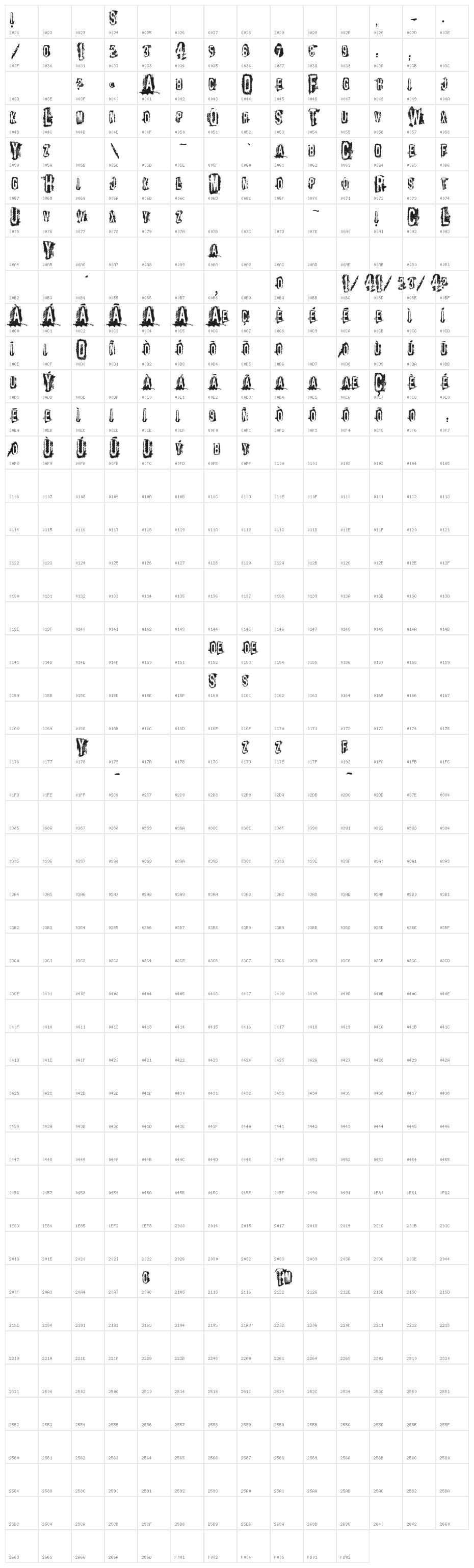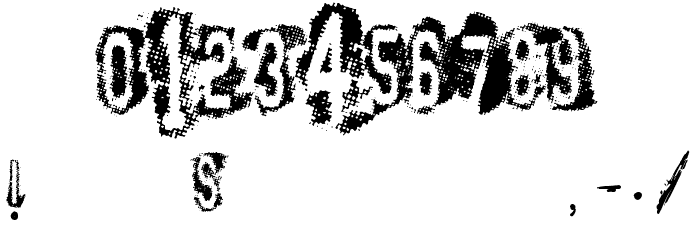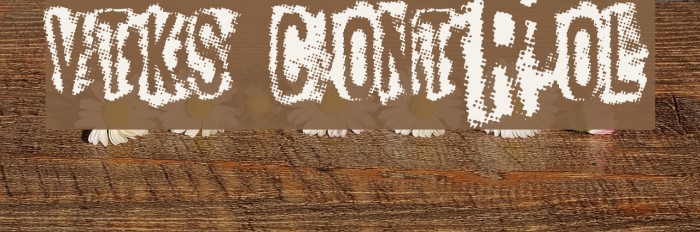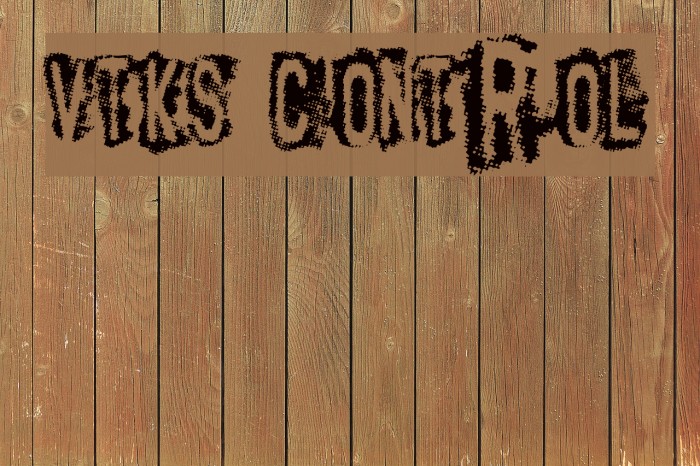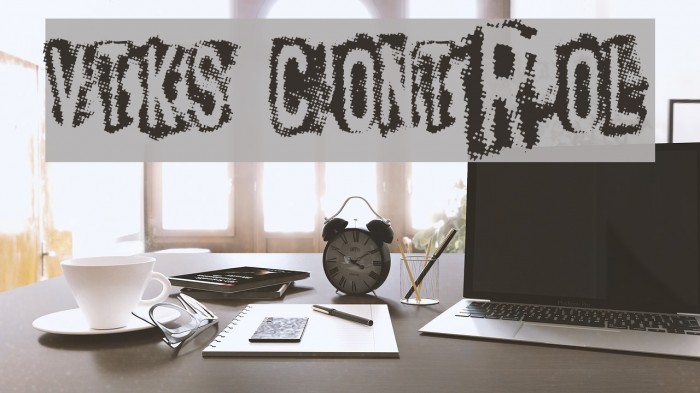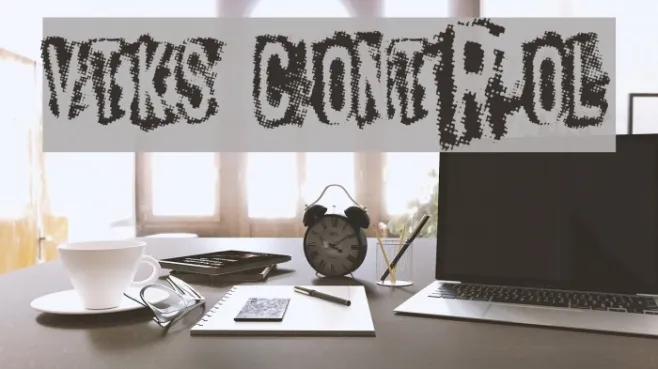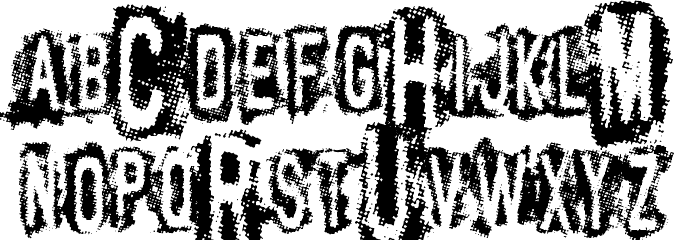
vtks Control Font
vtks Control Description
This font features a bold, distressed style with a textured appearance reminiscent of grunge or urban street art. The characters are heavily stylized with a rough, uneven outline that gives them a dynamic and edgy look. The font's design incorporates a halftone pattern, adding depth and a vintage print feel. Each letter appears to be slightly different, contributing to a handcrafted aesthetic. The overall impression is one of boldness and individuality, making it suitable for projects that require a strong visual impact.
| Overall Style | Grunge, Urban, Vintage |
| Proposed Projects | Ideal for album covers, posters, streetwear branding, and any design needing a gritty, urban aesthetic. |